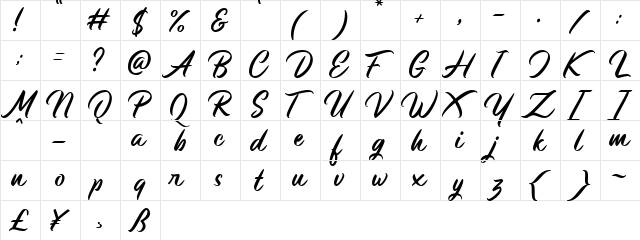
Monopola Script Regular
Design Context for Monopola Script Typeface
Monopola Script brings a calligraphic fluidity to the page — its connecting strokes and expressive curves give it an unmistakably human quality.
Font Pairing: Combine Monopola Script with a simple geometric sans for maximum contrast — the tension between flowing curves and clean structure is a classic typographic pairing.
Pro Tip: Use Monopola Script for short runs of text — names, titles, or taglines. Extended body copy in script faces tires the eye quickly.